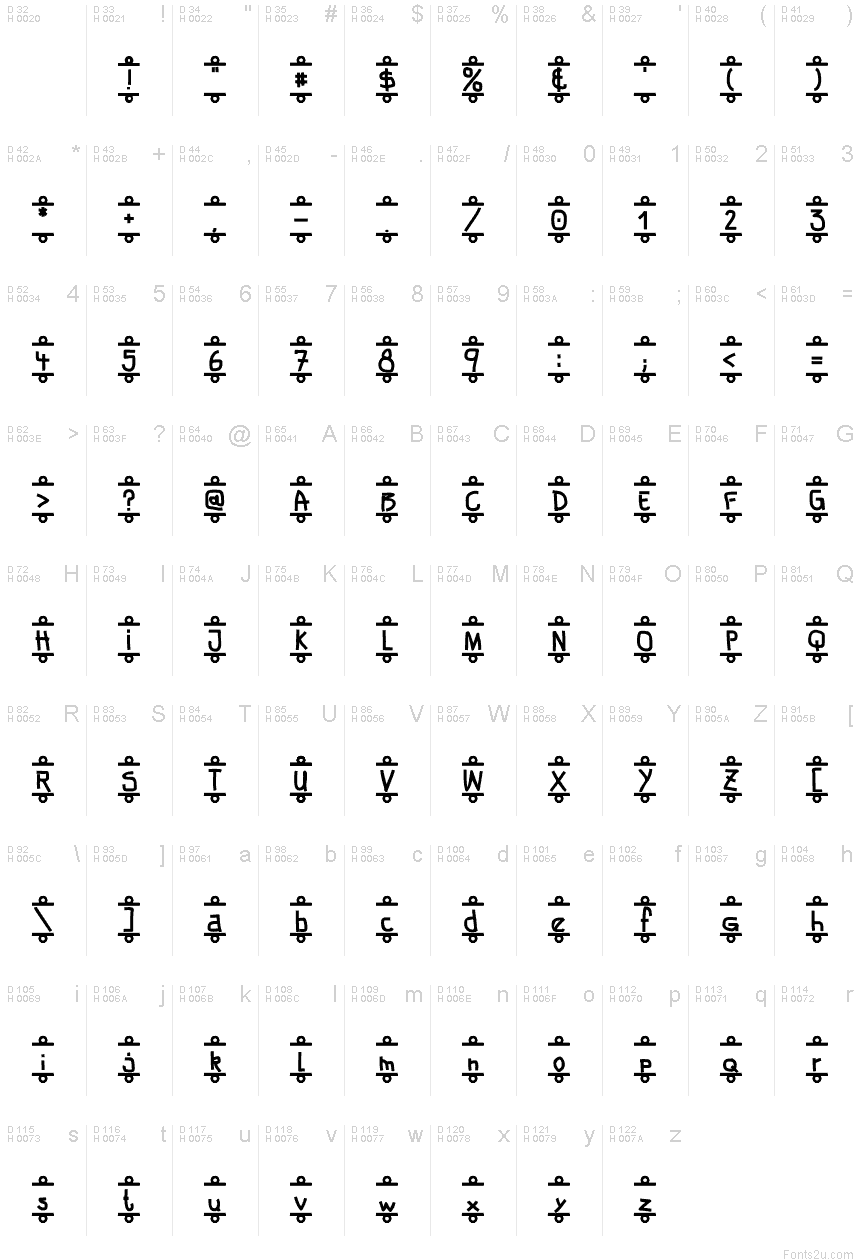
Banner
Banner font by Samuel MARCIUS is a free decorative typeface that looks like a hand‑painted sign riding along a strip of track. Bold black strokes wobble just enough to feel human, while the dotted rail running above and below each word turns every line into its own little marquee. The letters feel lively and slightly mischievous, like they were drawn for a fairground ticket booth or a traveling circus poster.
Using Banner, your titles instantly feel like announcements: it shines on party invitations, school event flyers, kids’ book covers, craft packaging, game titles, and quirky branding. This free font works best in large sizes where the rail detail can really show, and it pairs nicely with a clean geometric sans serif for body copy to keep the layout readable but fun.